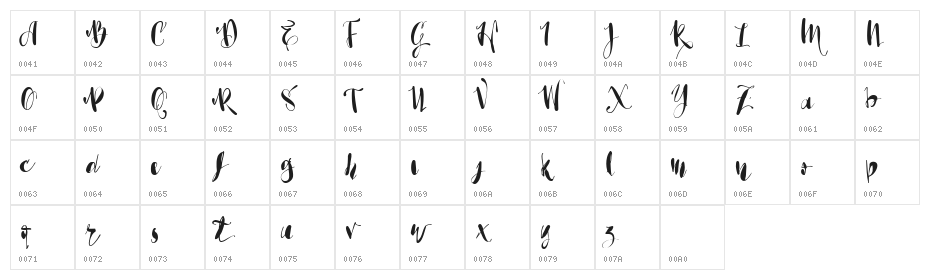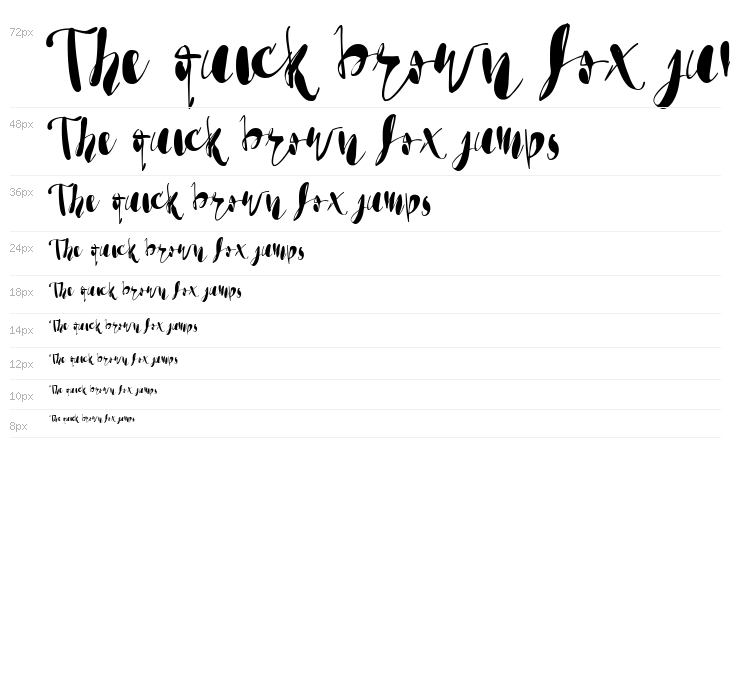
Vtks Bela Vista Font
Vtks Bela Vista Description
This font exudes a whimsical and artistic flair, characterized by its flowing, cursive style. The letters are intricately designed with elegant loops and swirls, giving it a hand-drawn appearance. The uppercase letters are bold and expressive, while the lowercase letters maintain a consistent fluidity. The font's playful nature is enhanced by its varying stroke thickness, which adds a dynamic contrast to the overall design. This font is perfect for creative projects that require a touch of elegance and personality.